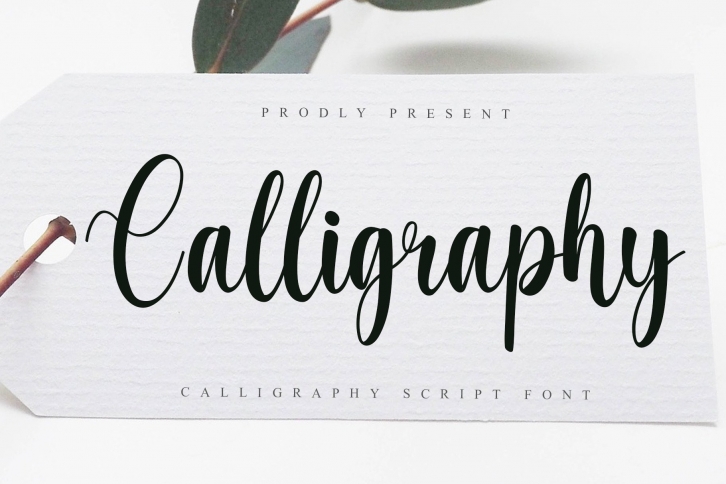
Calligraphy is a chic, trendy script font that emanates confidence and versatility. Its stylish alternates and ligatures make this font the perfect match for any project.